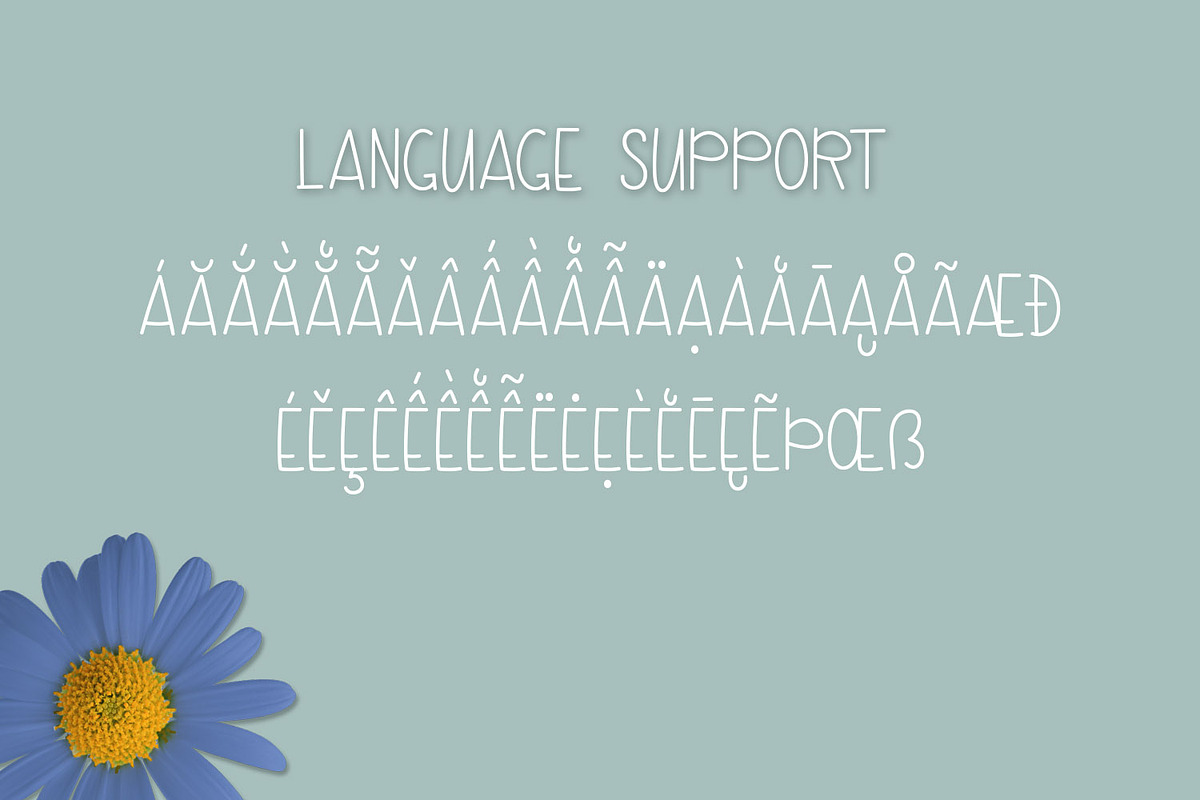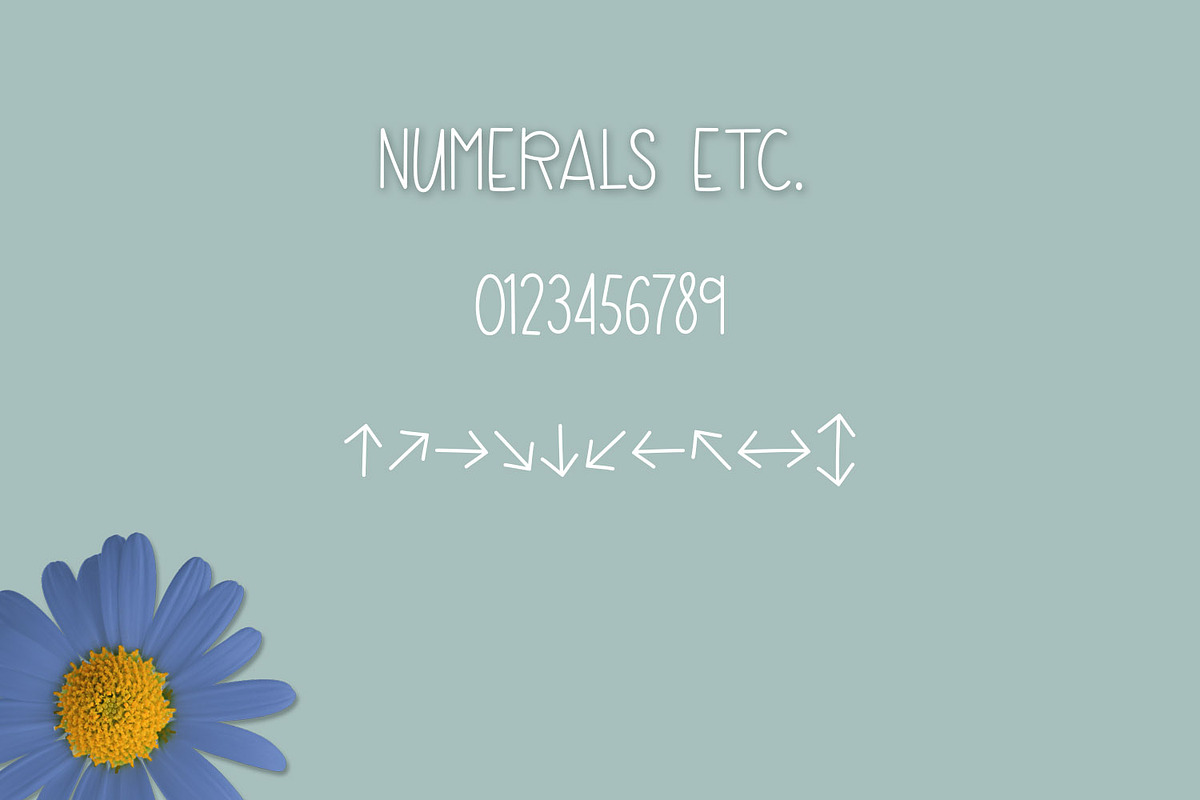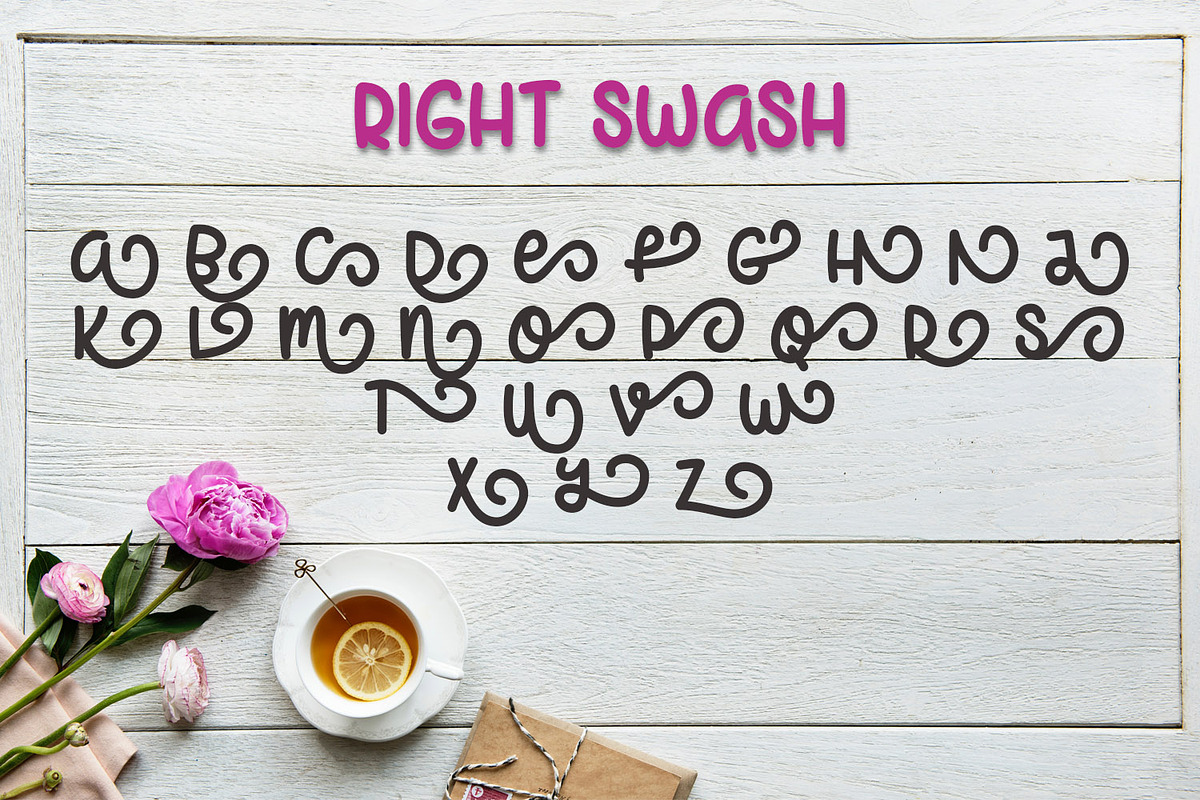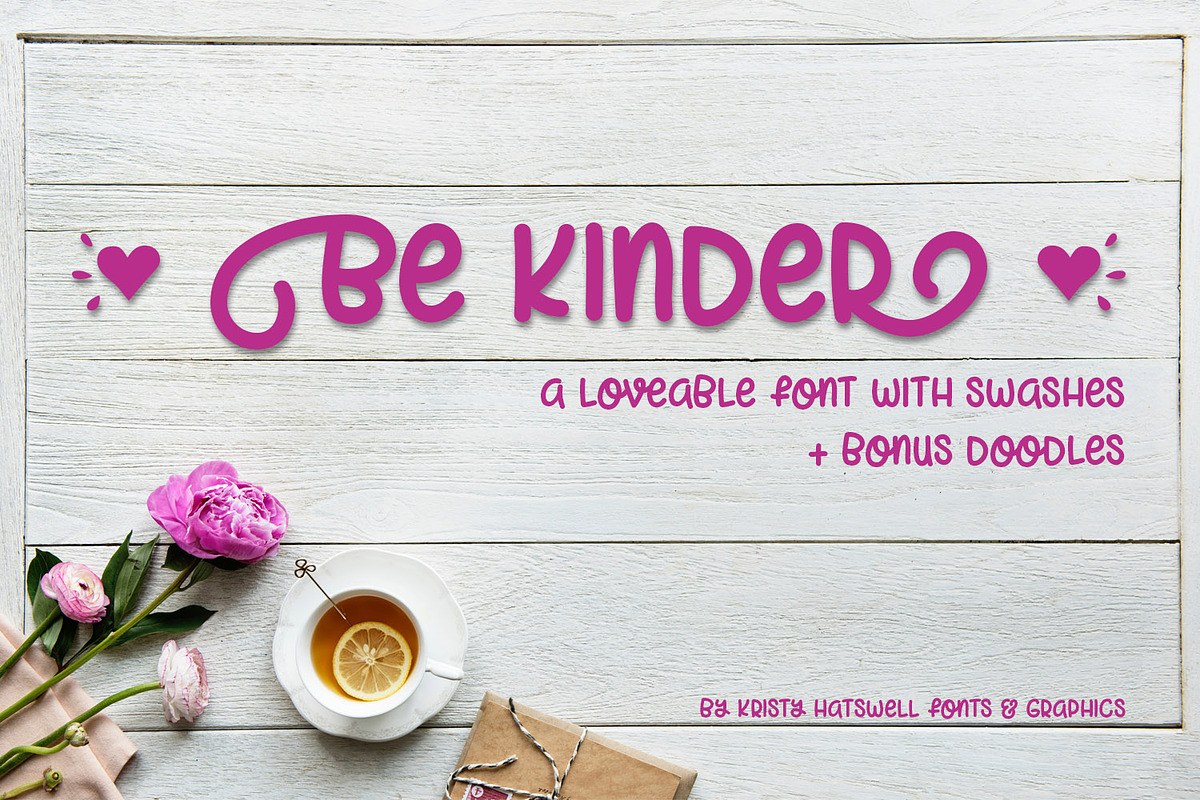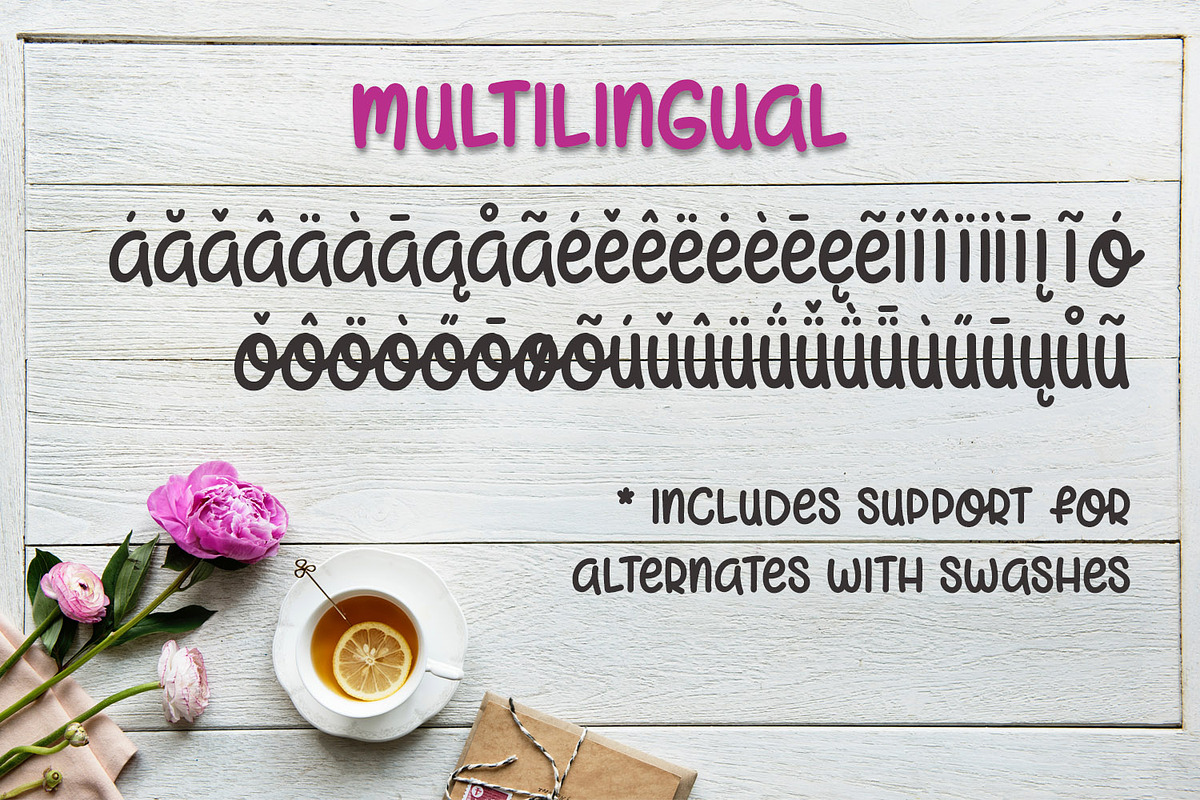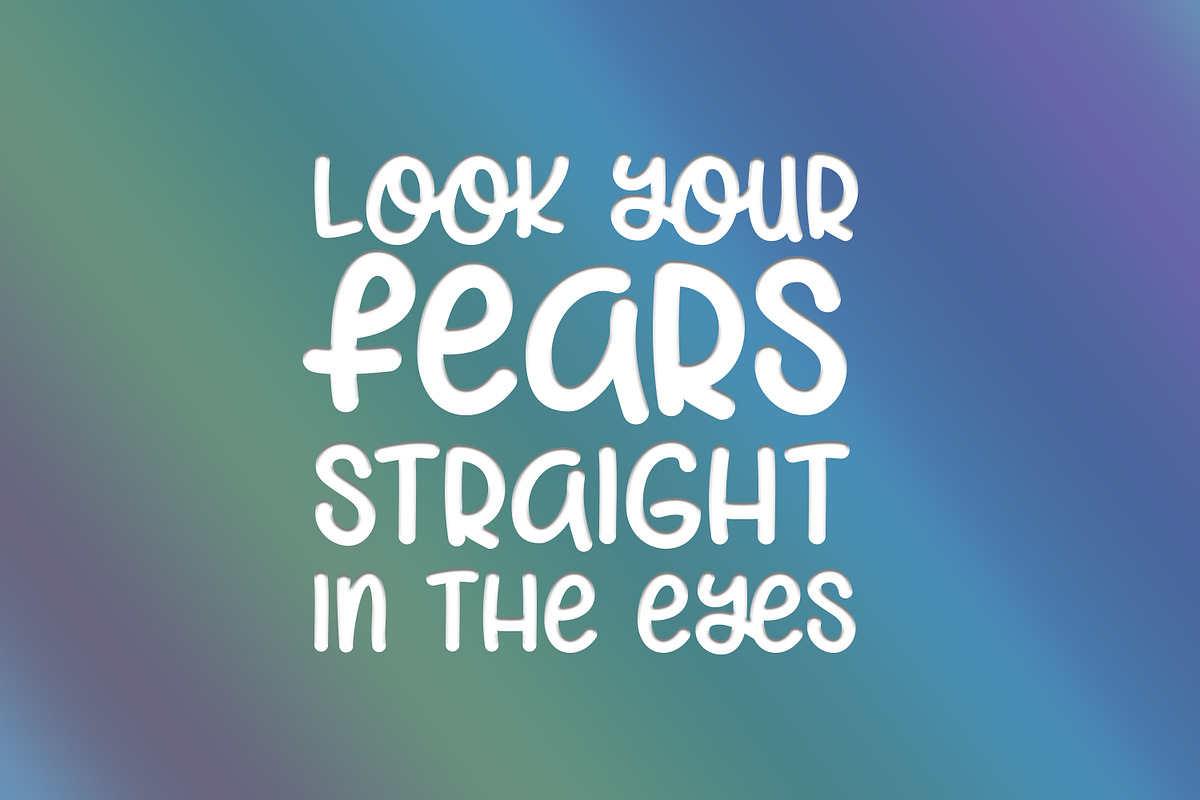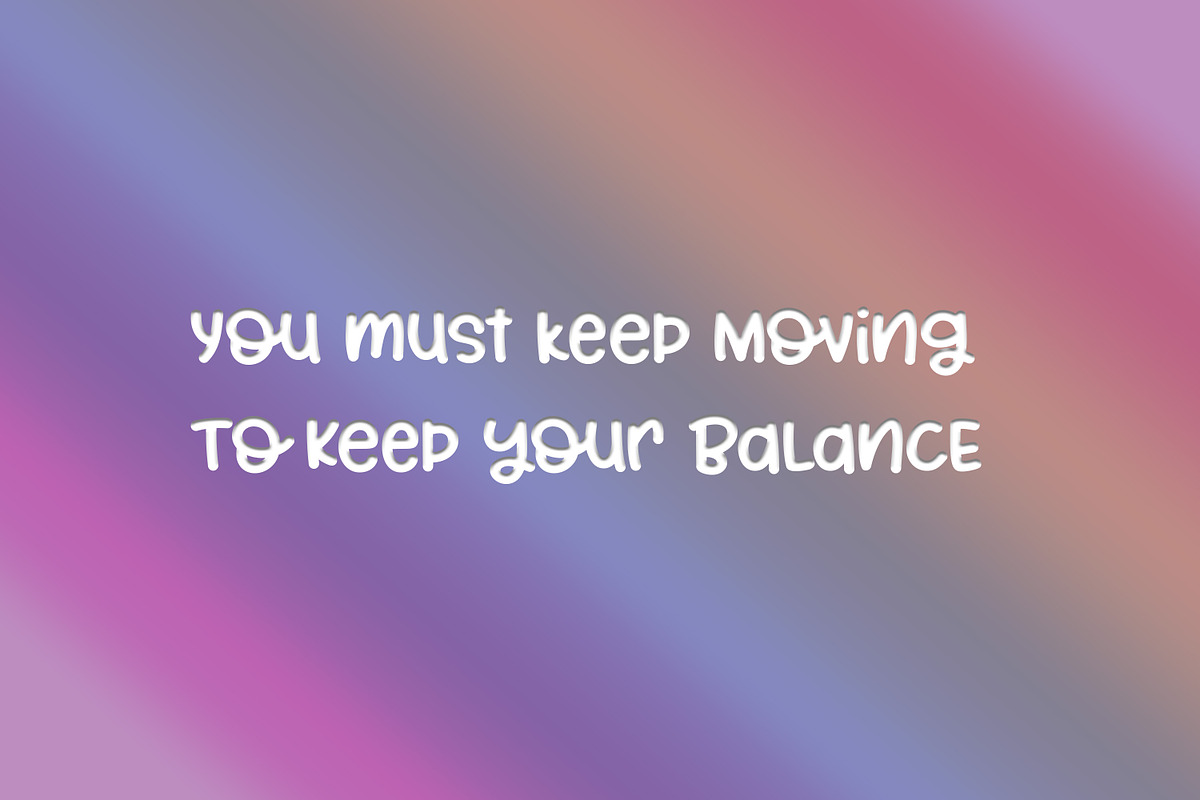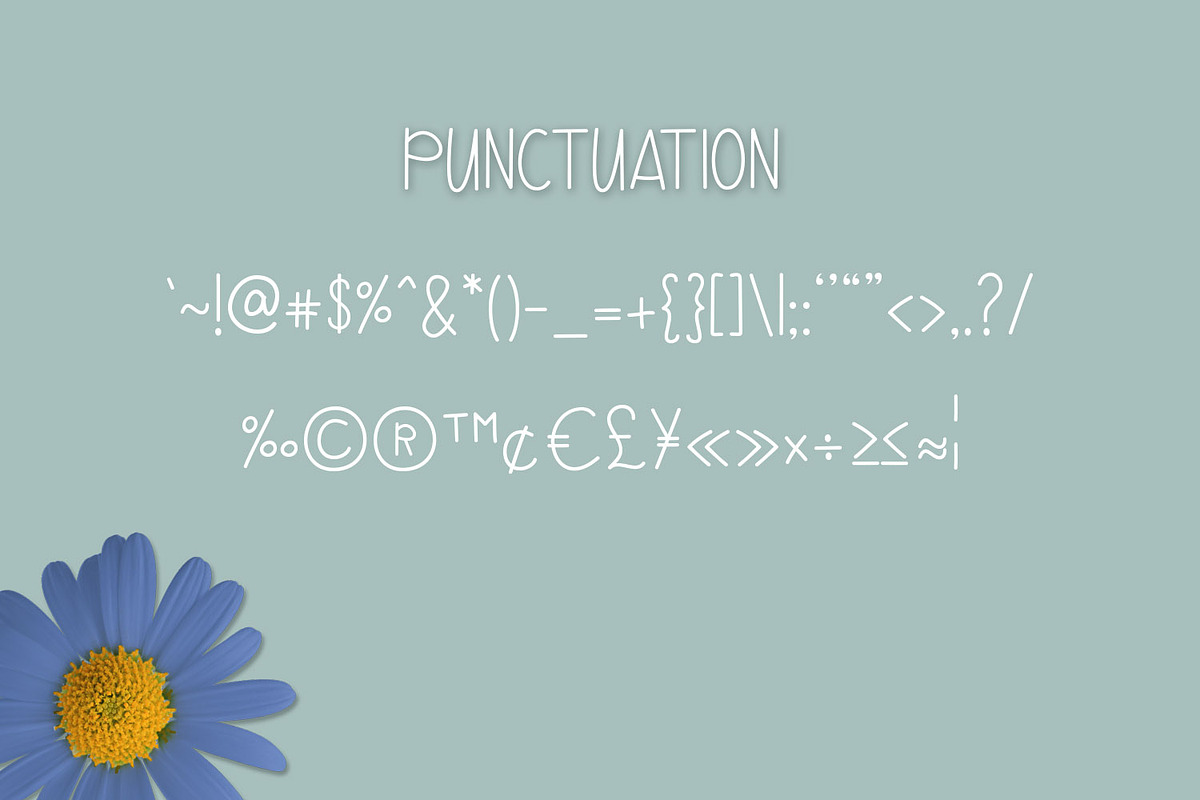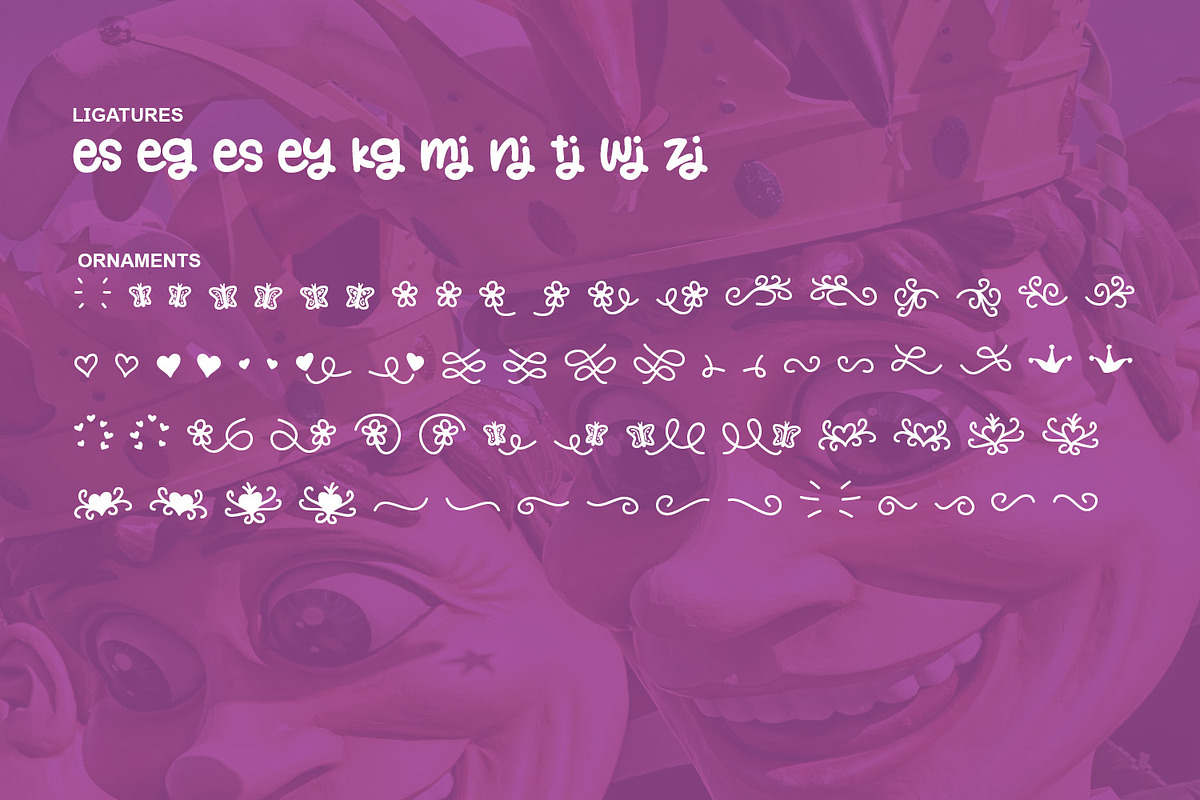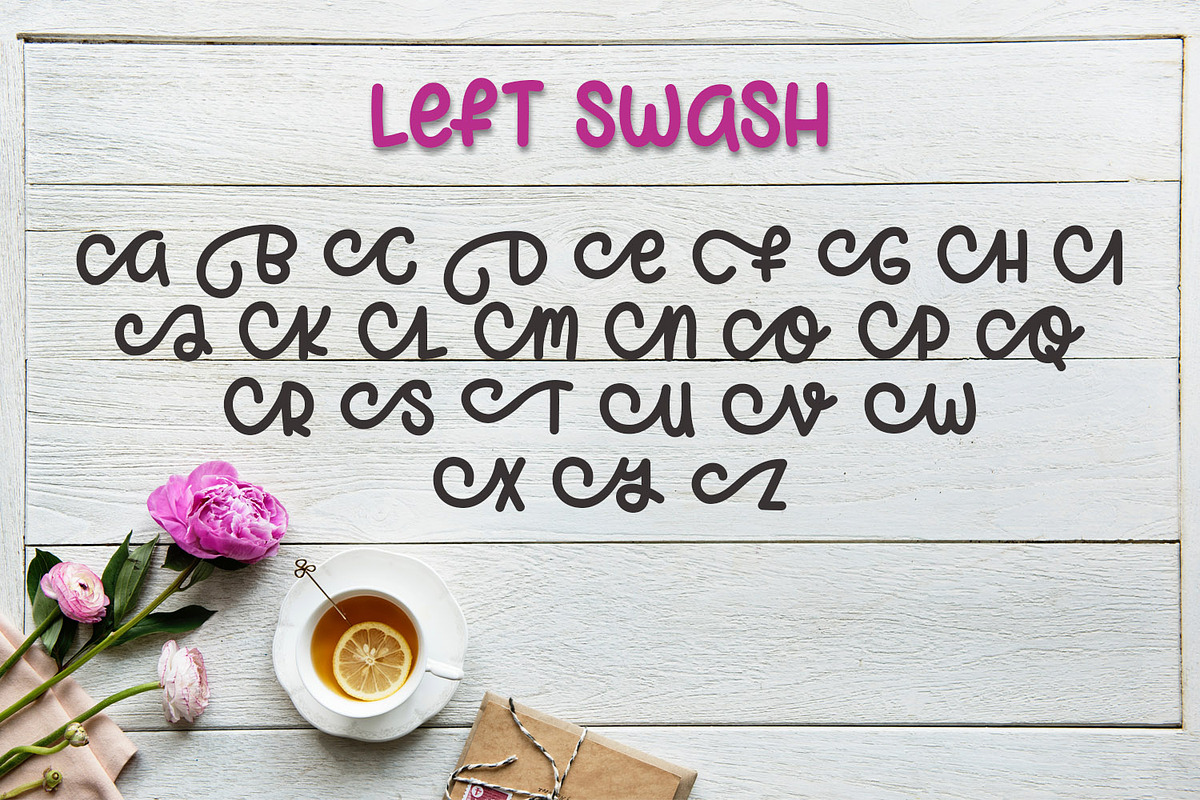
The Handwritten Mini Bundle
- Be Kinder is a thick handwritten font with alternates.
- Berry Smoothies is a pretty handwritten script and regular handwriting sans-serif.
- Blue Daisy is a thin whimsical handwritten font.
- Honey Jester is a thicker handwritten font.
- All of these fonts are smooth with as few nodes as possible - great for SVG creators.